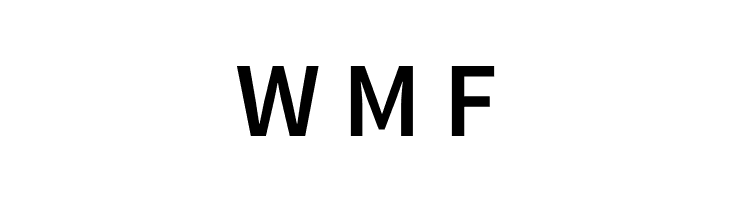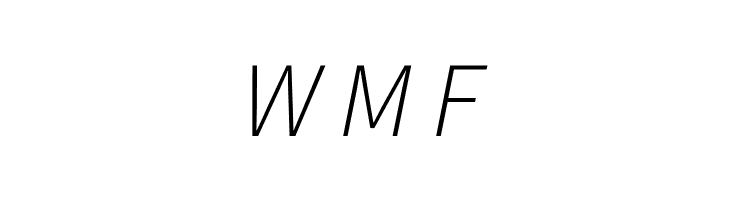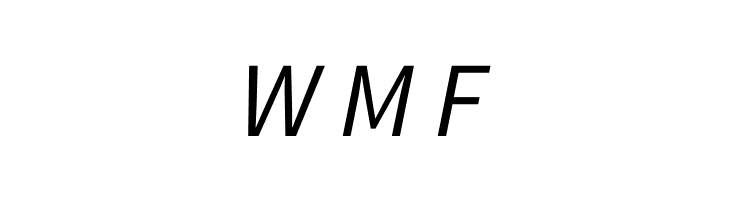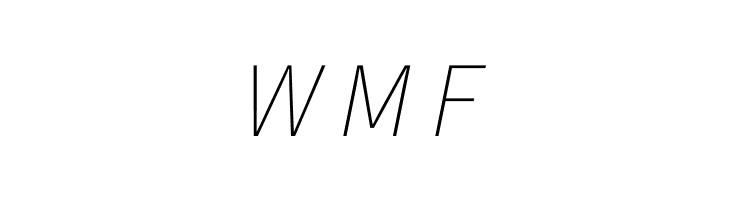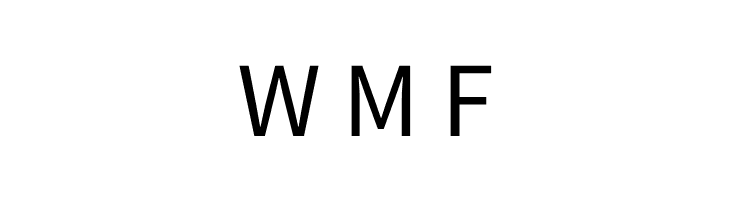
• Source Sans Pro ExtraLight Italic
A sleek, modern, and elegant italic font with slender, elongated characters.
• Source Sans Pro ExtraLight Italic
A sleek, modern italic font with thin strokes and a minimalist design.
• Source Sans Pro Italic
A modern, italic sans-serif font with smooth curves and excellent readability.
• Source Sans Pro Italic
A modern, italic sans-serif font with clean lines and balanced proportions.
• Source Sans Pro Light
A modern, light sans-serif font with excellent readability and elegant curvature.
• Source Sans Pro Light
A modern, light sans-serif font with clean lines and excellent readability.
• Source Sans Pro Light Italic
A modern, light, italic sans-serif font with sleek and elegant characters.
• Source Sans Pro Light Italic
A modern, light, and italic sans-serif font with clean lines and elegant slant.
• Source Sans Pro Regular
A clean, modern sans-serif font with excellent readability and versatility.
• Source Sans Pro SemiBold
A modern, clean sans-serif typeface with balanced proportions and open forms.